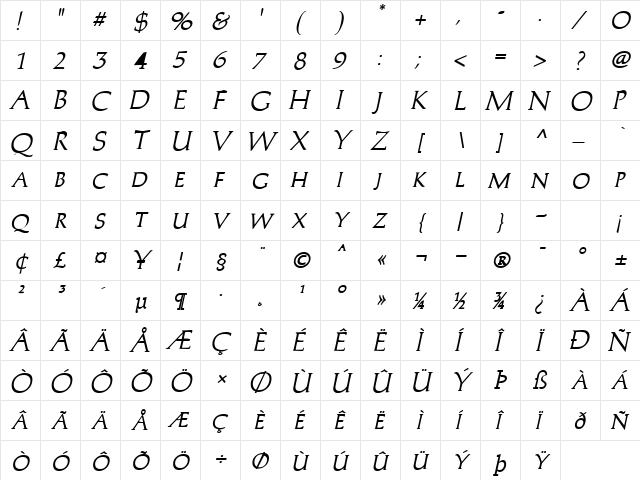
Trajan'sCaps Bold Italic
Design Context for Trajan'sCaps Typeface
Trajan'sCaps offers clean, dependable letterforms without strong stylistic allegiance, making it a practical choice for designers who need flexibility. The dynamic lean of this cut emphasises speed and emphasis in any layout. The heavy weight commands attention and anchors typographic hierarchies.
Pro Tip: Use Trajan'sCaps for emphasis, pull quotes, and subheadings where its slanted energy can add rhythm to the layout.